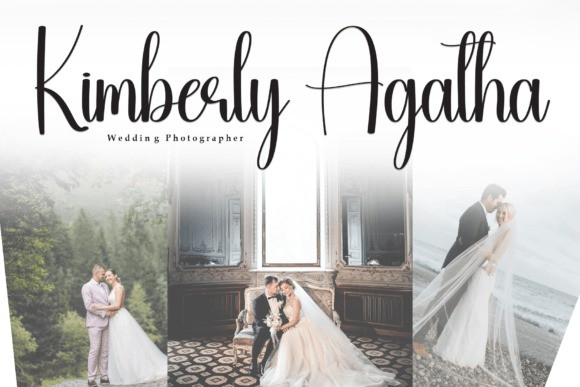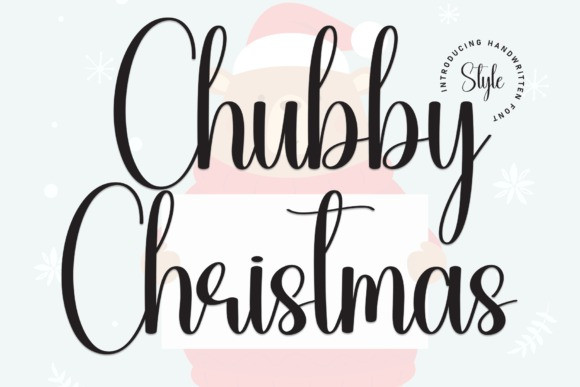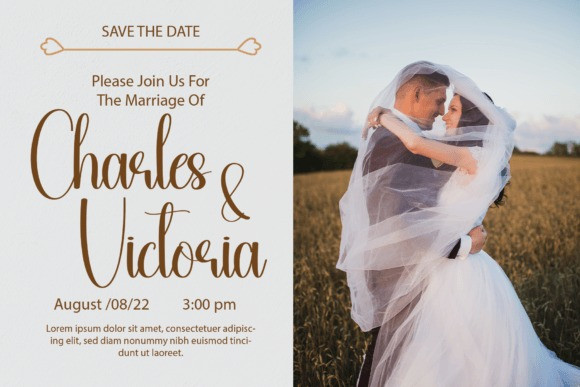
Chubby Christmas Font
Chubby Christmas Font is a flowing handwritten font, described by an elegant touch, perfect for your favorite projects. Fall in love with its incredibly distinct and timeless style and use it to create spectacular designs!